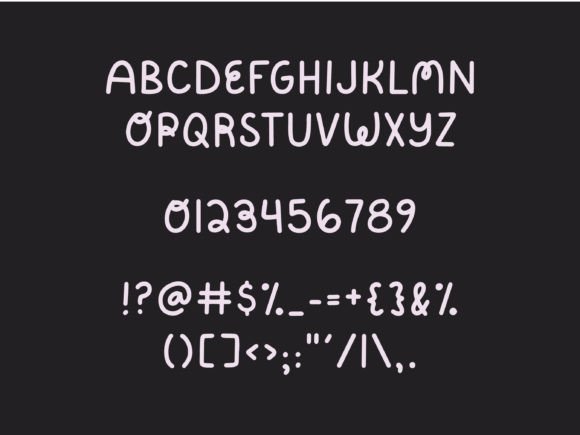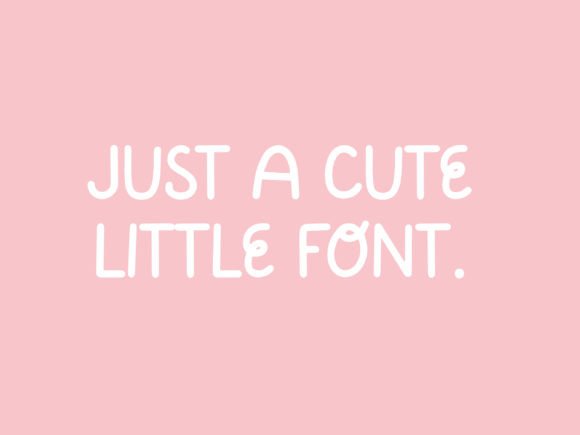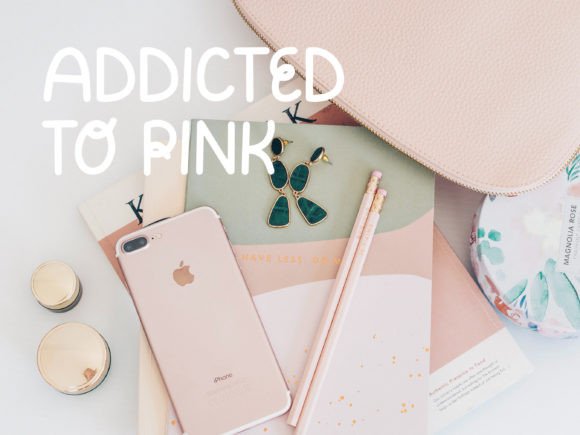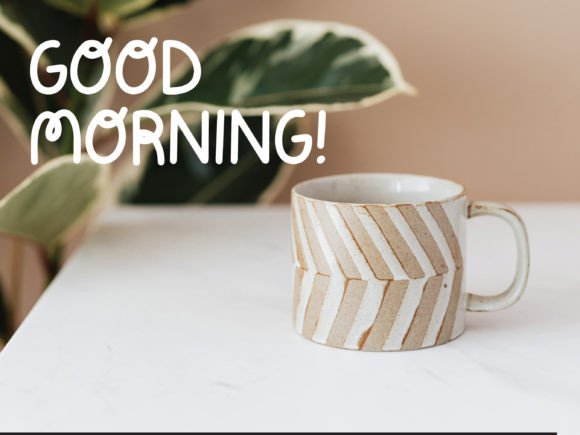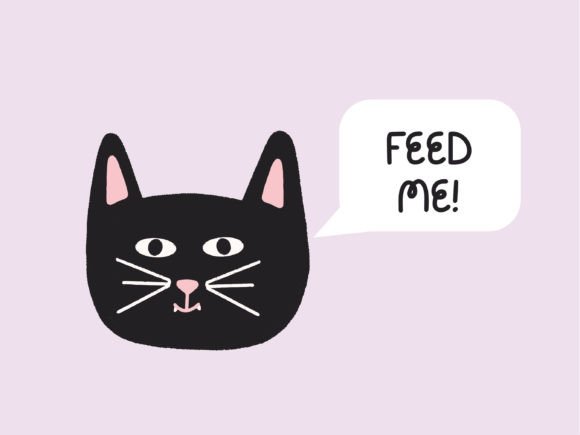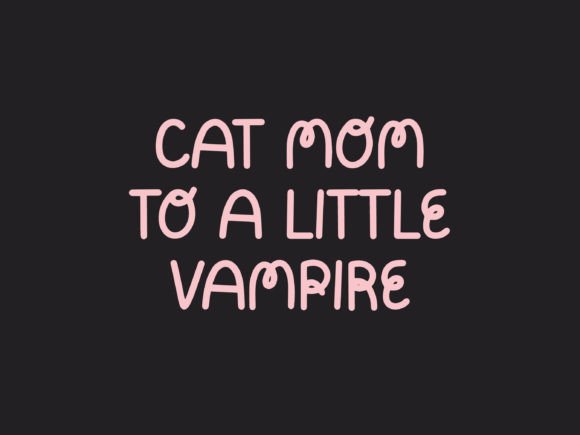
Fangs Font: Add a Personal Touch to Your Designs with this Playful Handwritten Font
Are you looking for a unique and playful font to add a personal touch to your next design project? Look no further than Fangs Font! This handwritten uppercase font is perfect for creating logos, quotes, and social media posts that stand out from the crowd. In this article, we’ll take a closer look at Fangs Font, its features, and how you can use it to elevate your designs.
What is Fangs Font?
Fangs Font is a playful handwritten font that is designed to add a personal touch to your designs. It’s an uppercase font, which means it’s perfect for creating bold and eye-catching text. The font is hand-drawn, giving it a unique and organic feel that’s perfect for designs that need a human touch.
Key Features of Fangs Font
Here are some key features of Fangs Font that make it a great choice for your next design project:
• Playful and handwritten: Fangs Font has a playful and handwritten feel that’s perfect for designs that need a personal touch.
• Uppercase font: Fangs Font is an uppercase font, which makes it perfect for creating bold and eye-catching text.
• Limited punctuation and symbols: Please note that the font only comes with what you see in the second image, which means punctuation and symbols are limited.
How to Use Fangs Font
Fangs Font is a versatile font that can be used for a variety of design projects. Here are some ideas for using Fangs Font:
• Logos: Fangs Font is perfect for creating unique and eye-catching logos that stand out from the crowd.
• Social media posts: Use Fangs Font to create bold and eye-catching social media posts that grab attention.
• Quotes: Fangs Font is perfect for creating inspirational quotes that you can share on Instagram and other social media platforms.
• Invitations: Use Fangs Font to create unique and eye-catching invitations for parties, events, and more.
Tips for Using Fangs Font
Here are some tips for using Fangs Font to get the most out of this playful handwritten font:
• Use it sparingly: Fangs Font is a bold font, so use it sparingly to avoid overwhelming your design.
• Pair it with other fonts: Fangs Font works great when paired with other fonts, so experiment with different font combinations to find the perfect look.
• Experiment with colors: Fangs Font looks great in a variety of colors, so experiment with different colors to find the perfect look for your design.
Who is Fangs Font for?
Fangs Font is perfect for designers, crafters, and anyone who wants to add a personal touch to their designs. Here are some examples of who can benefit from using Fangs Font:
• Graphic designers: Fangs Font is perfect for graphic designers who want to create unique and eye-catching logos, social media posts, and more.
• Crafters: Fangs Font is great for crafters who want to add a personal touch to their DIY projects, such as invitations, signs, and more.
• Small business owners: Fangs Font is perfect for small business owners who want to create unique and eye-catching branding materials, such as logos, business cards, and more.
Fangs Font is a playful handwritten font that’s perfect for adding a personal touch to your next design project. With its bold and eye-catching uppercase letters, Fangs Font is great for creating logos, quotes, social media posts, and more. Whether you’re a designer, crafter, or small business owner, Fangs Font is a great choice for anyone who wants to add a unique and personal touch to their designs.